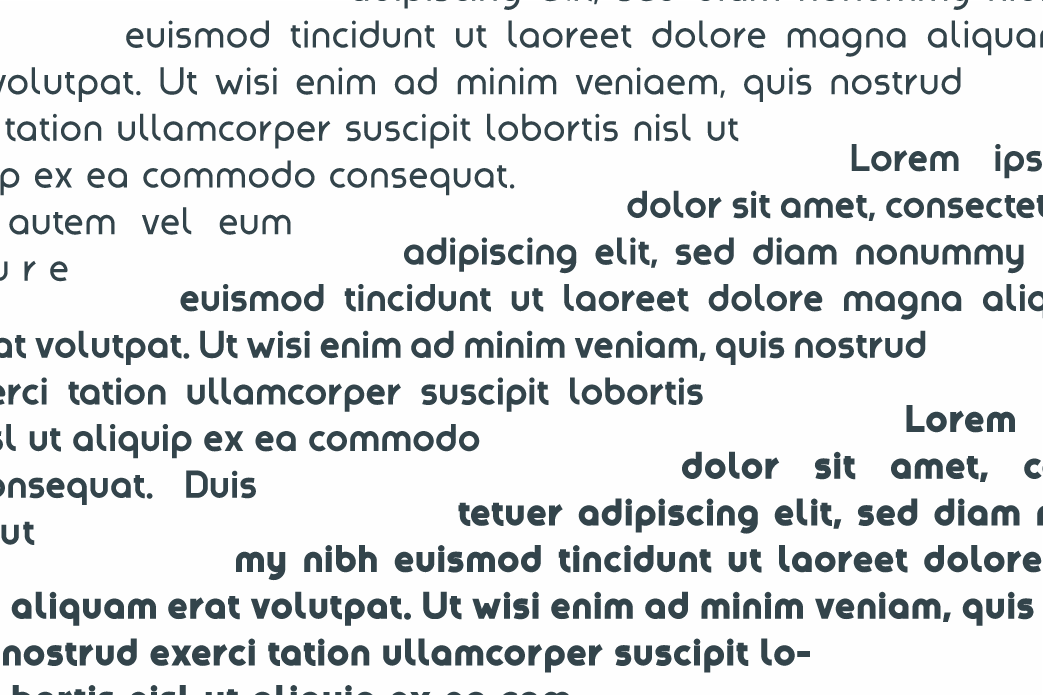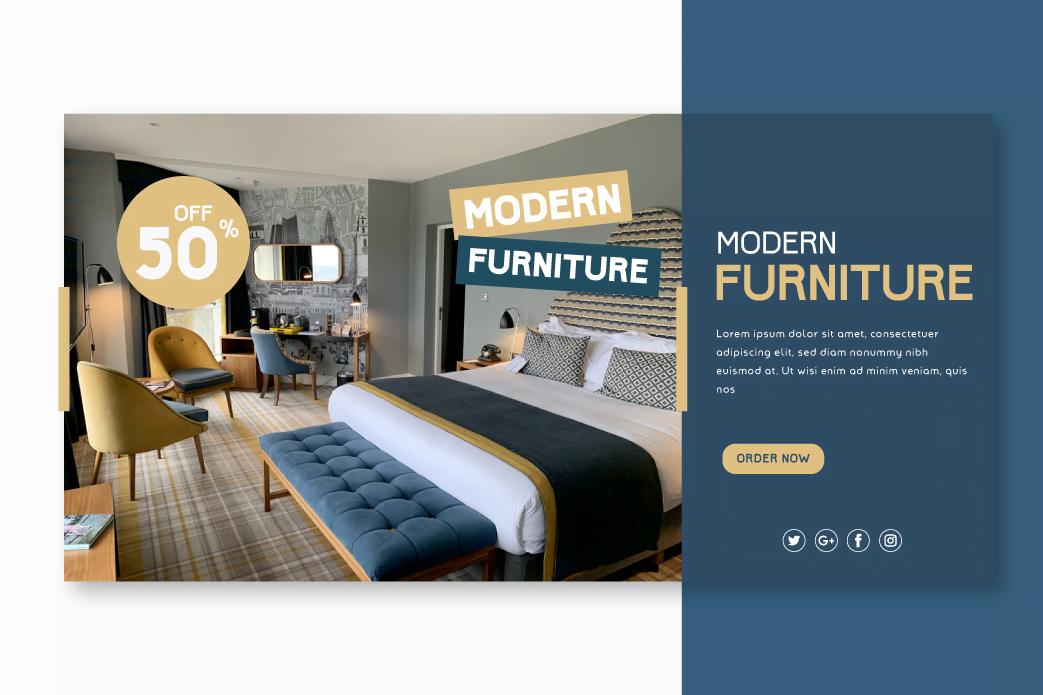
Amenable
Introducing Amenable.
Our latest fonts that save beauty in every word order you write with this font. made by paying attention to detailed geometric and paying attention to the perspective of the eye when reading the text using this font, so we made this font design to appear harmonious and comfortable to read. use this font to create a perfect design.
This font is very suitable as text with displays for various kinds of branding, advertisements, posters, banners, packaging, news headlines, magazines, websites, logo design, banners, social media design and of course you can use a lot more.
• Fonts include multilingual support for; Afrikaans, Albanian, Croatian, Czech, Danish, Dutch, English, Estonian, Finnish, French, German, Hungarian, Italian, Norwegian, Polish, Portuguese, Slovak, Slovenian, Spanish, Swedish